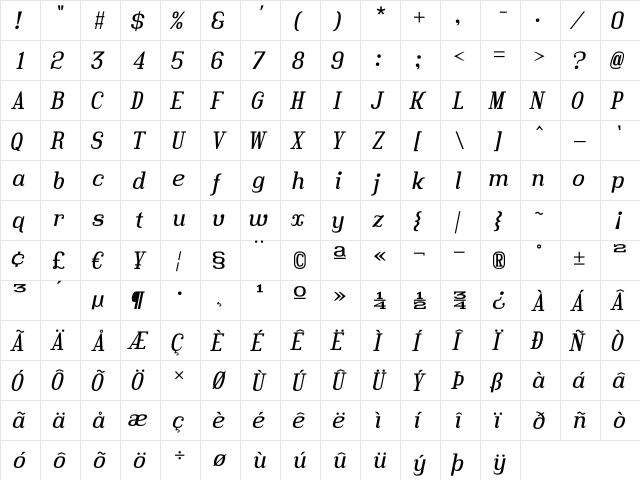
Hindsight Unicode Italic
| Foundry | Starving-4 Entertainment |
| Designer | Darren Rigby |
Design Context for Hindsight Unicode Typeface
Hindsight Unicode brings the precise, column-aligned rhythm of monospaced typography to designs that value technical clarity and systematic order. Its italic angle brings a sense of urgency and motion to the letterforms.